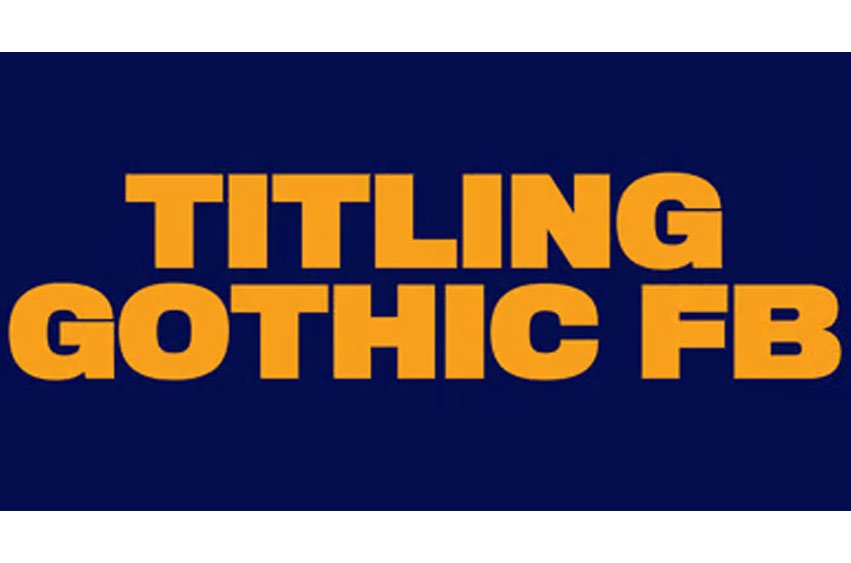
Titling Gothic FB Font
Titling Gothic FB Font is an immense series of nearly fifty styles inspired by that century-old favorite ATF Railroad Gothic. Led by the Los Angeles Times and Gentleman’s Quarterly, U.S. publications are using David Berlow’s series to unify the structure of headlines from its wide spectrum of options.
Titling Gothic FB started as a relative of Berlow’s Rhode family, but took its own direction; FB 2005